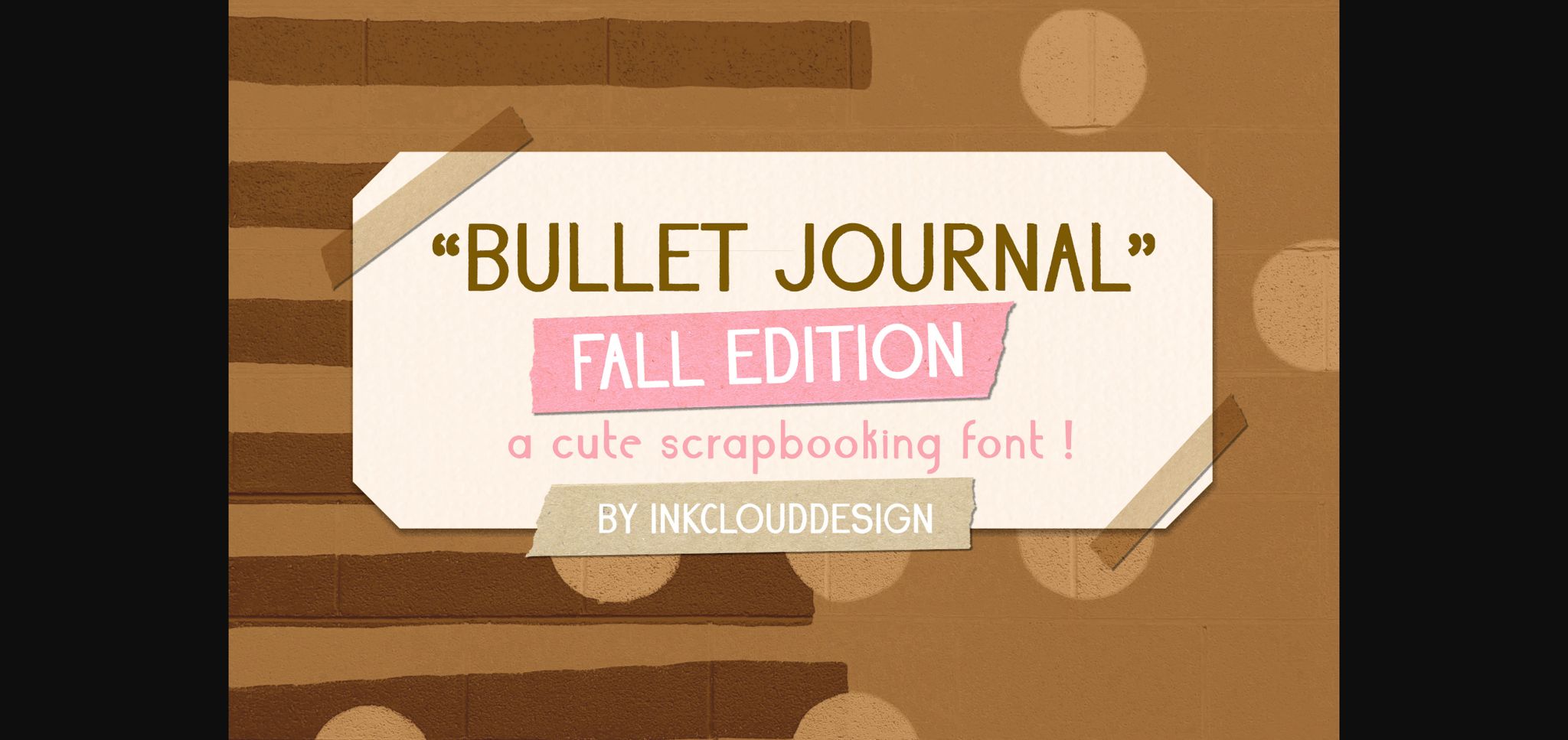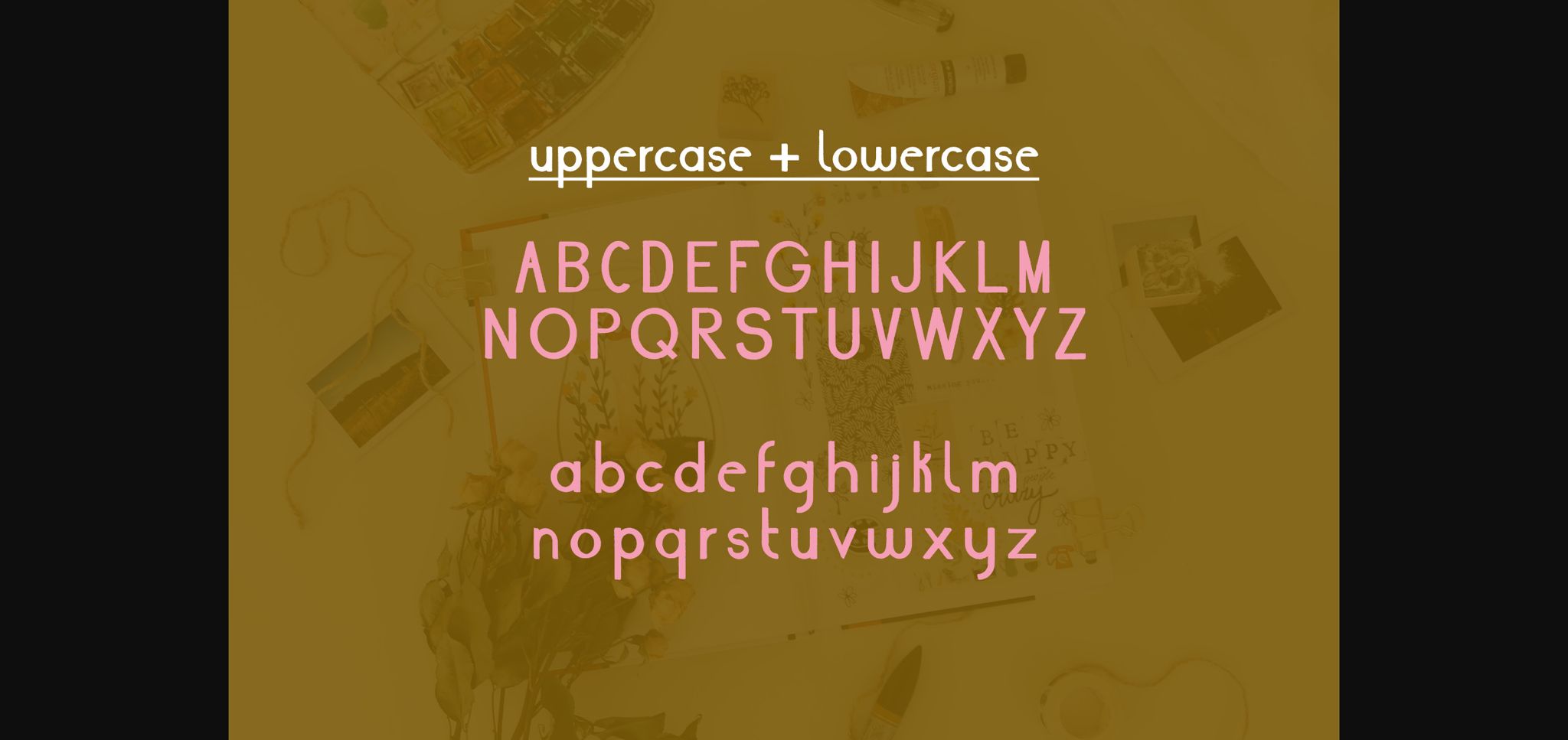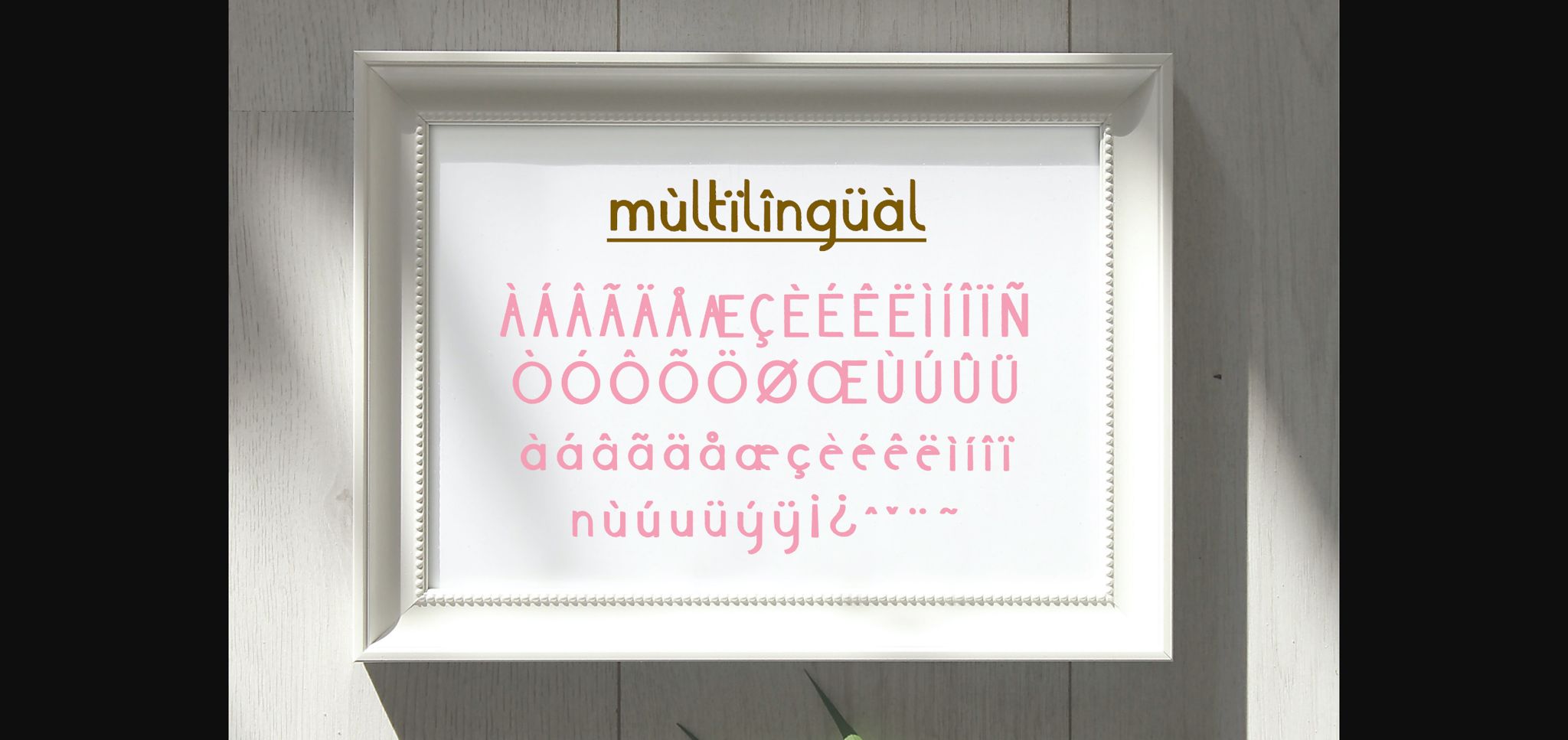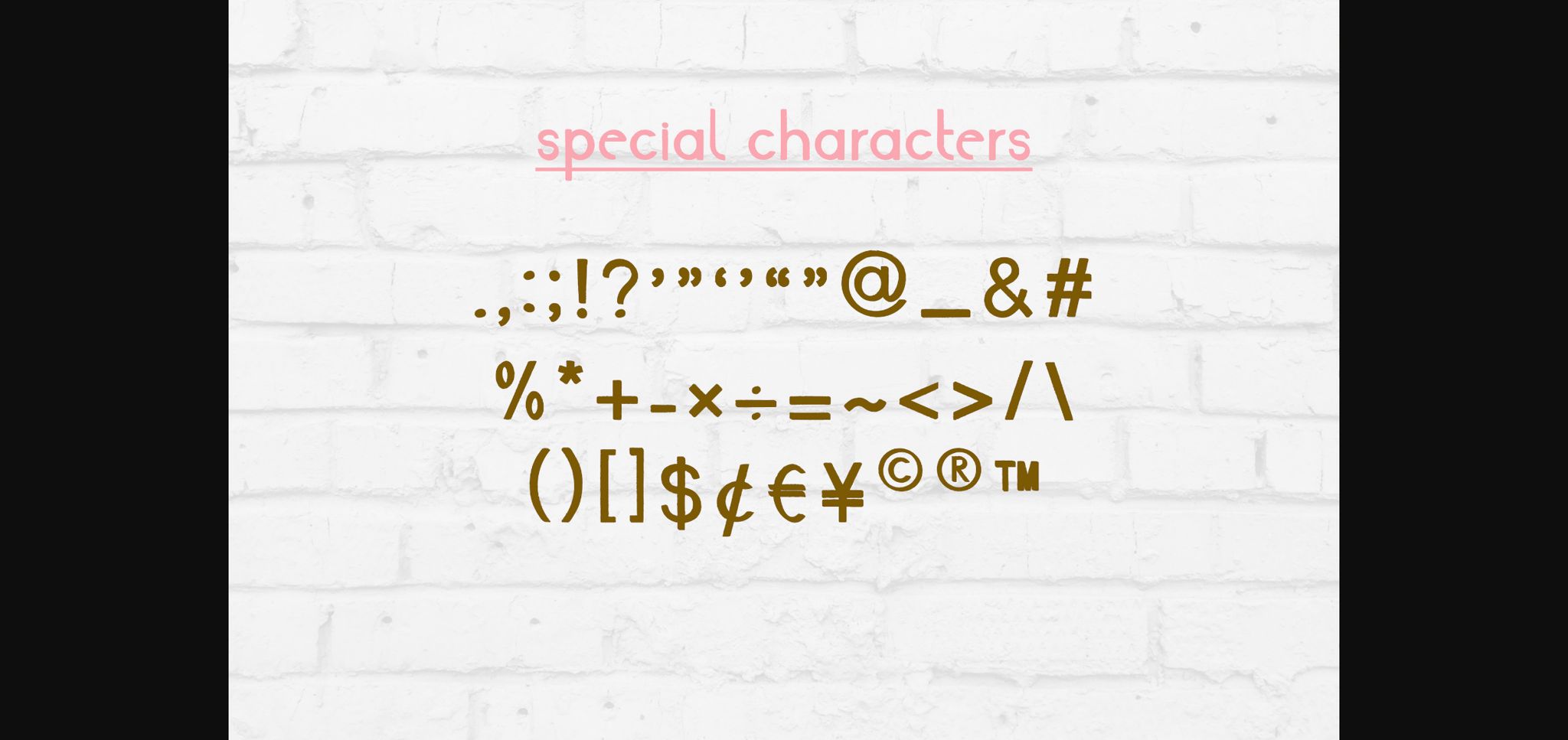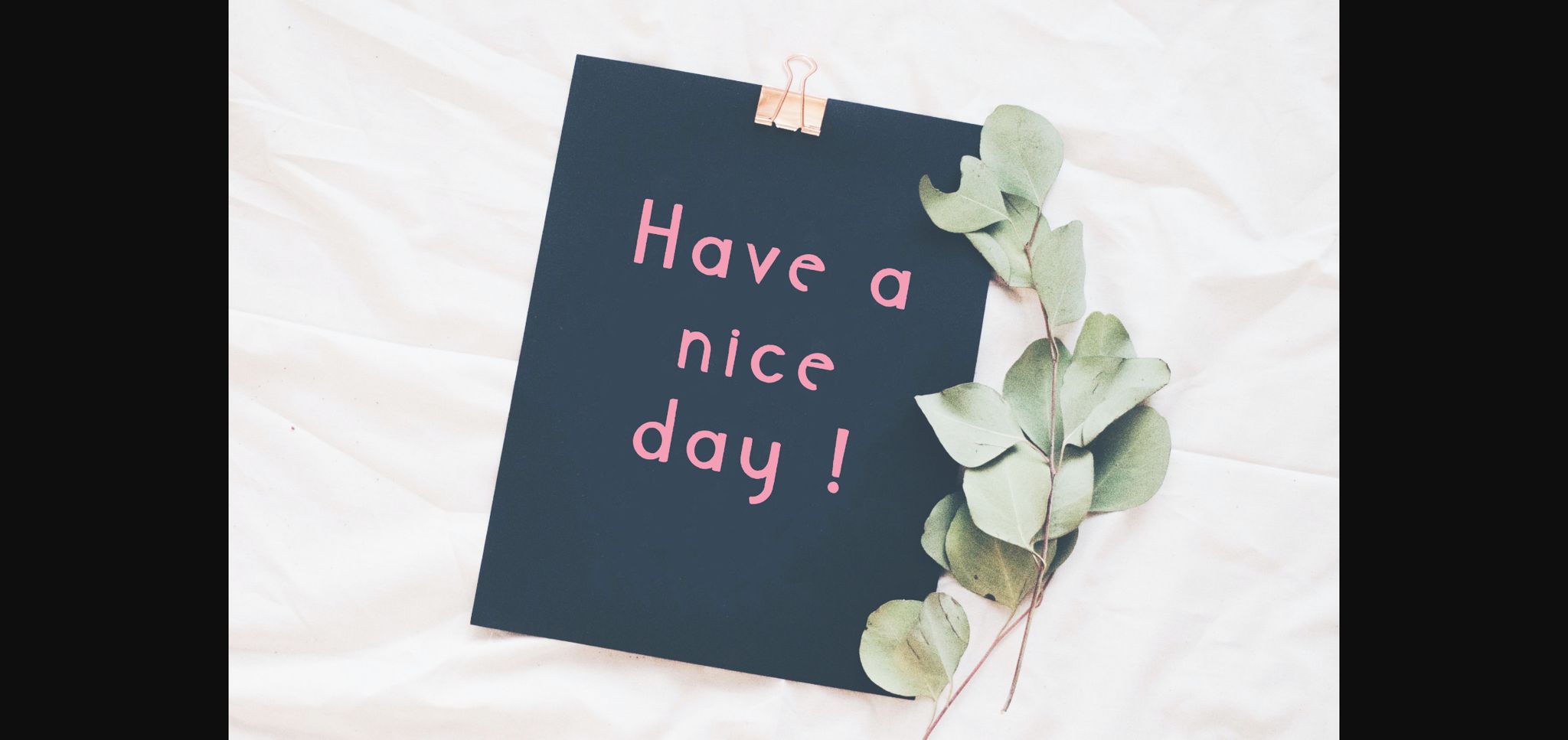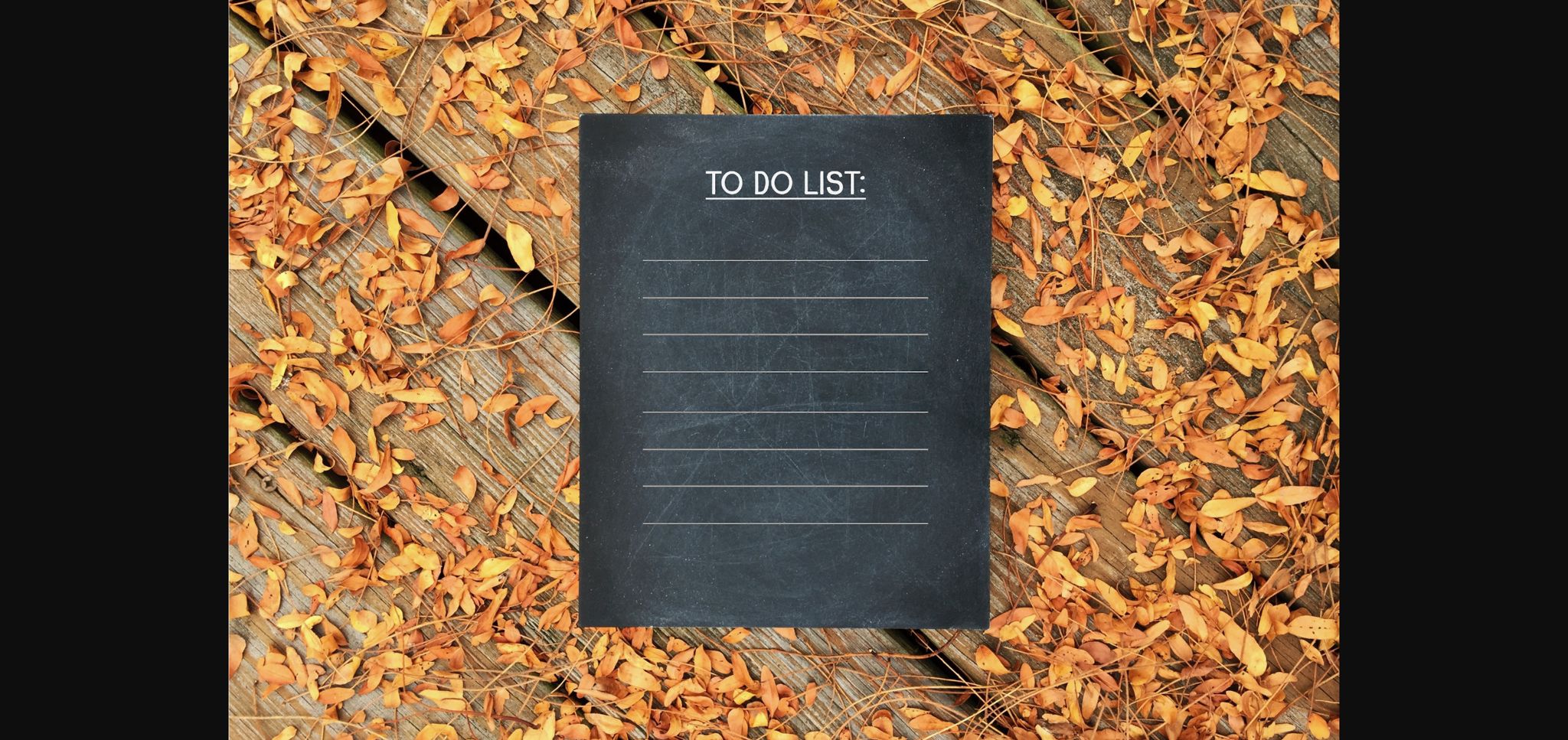
Bullet Journal Fall Font
About Bullet Journal Fall Font
Bullet Journal Fall is a cute scrapbooking font. It features a unique and friendly feel and it will elevate a wide range of design projects to the highest level, be it branding, headings, wedding designs, invitations, signatures, logos, labels, and much more!